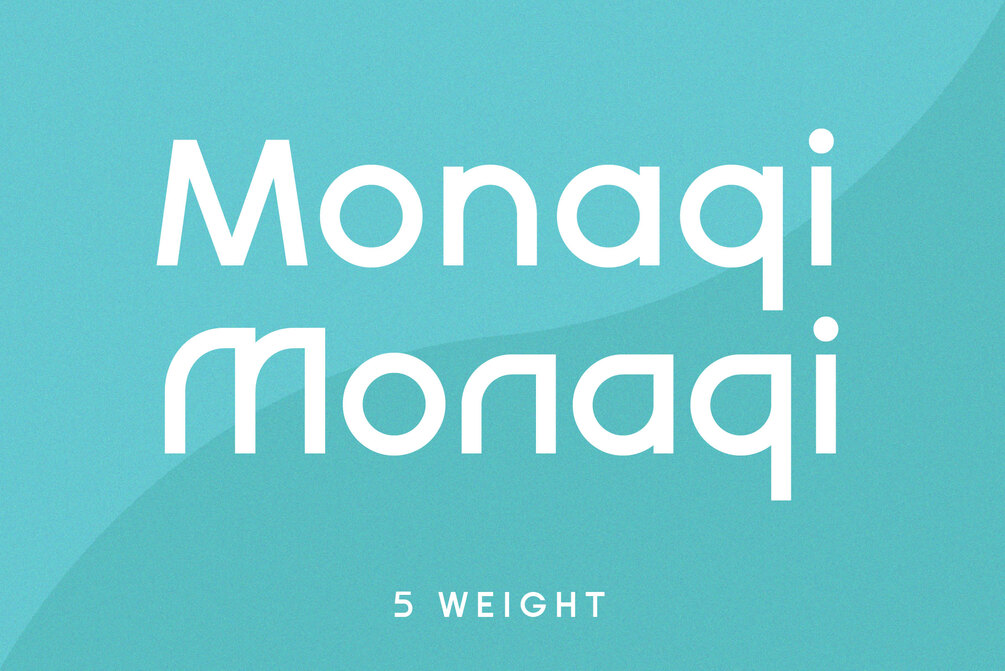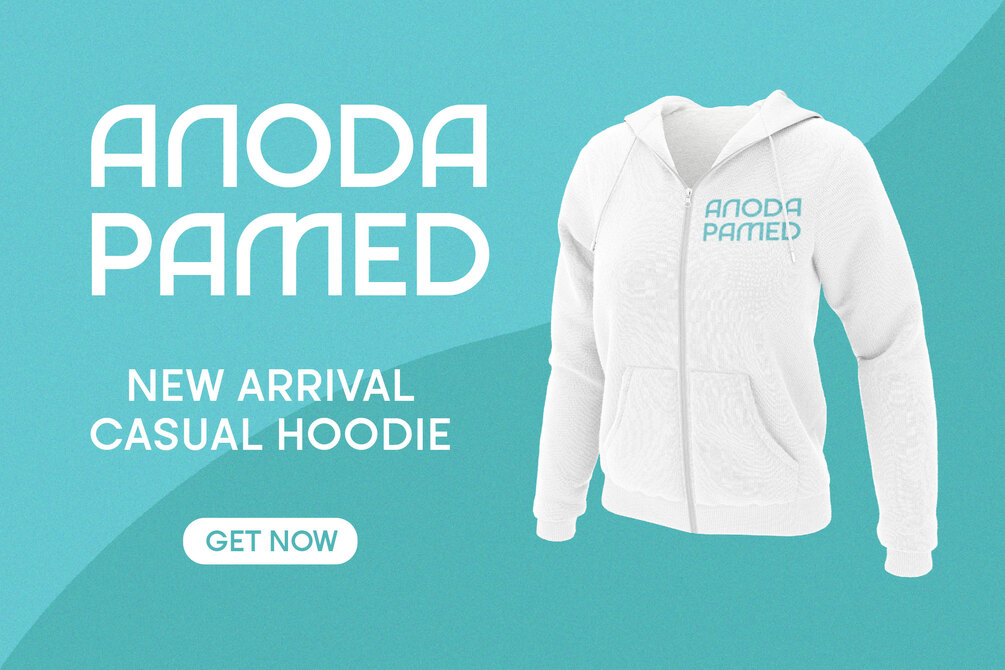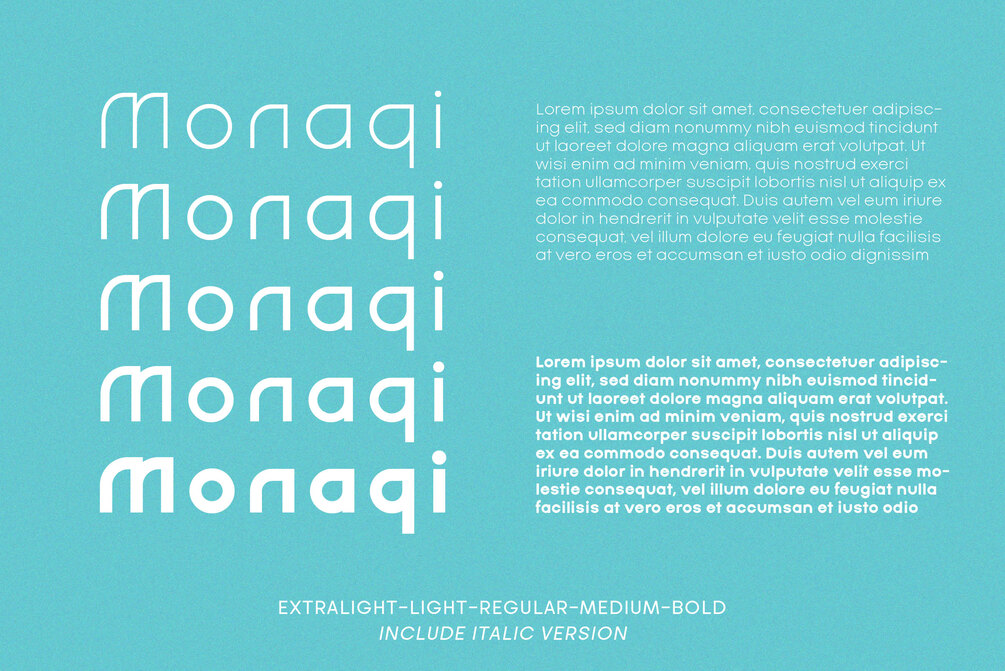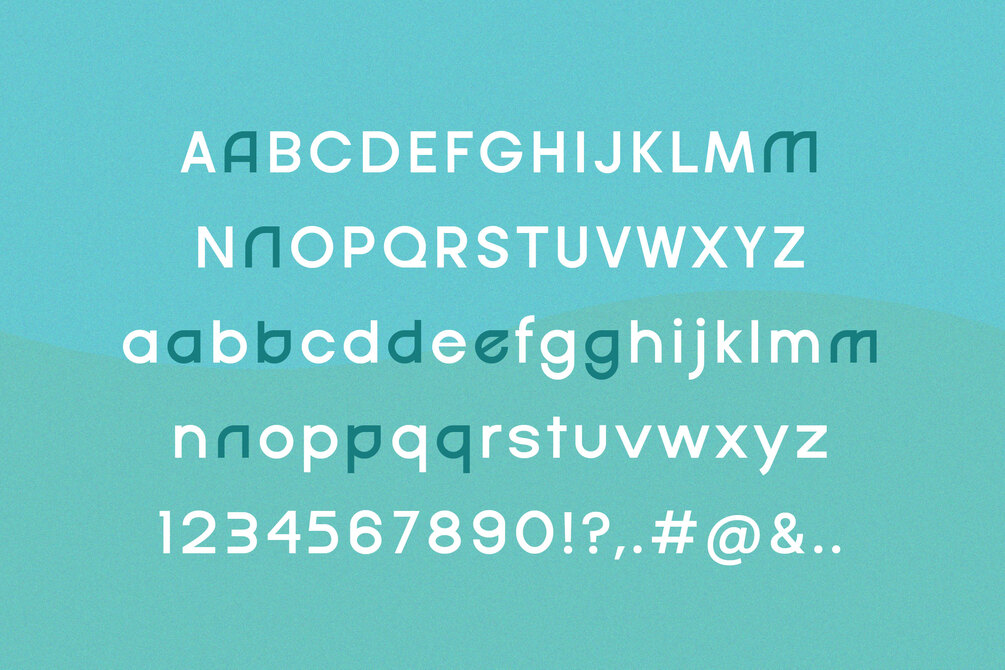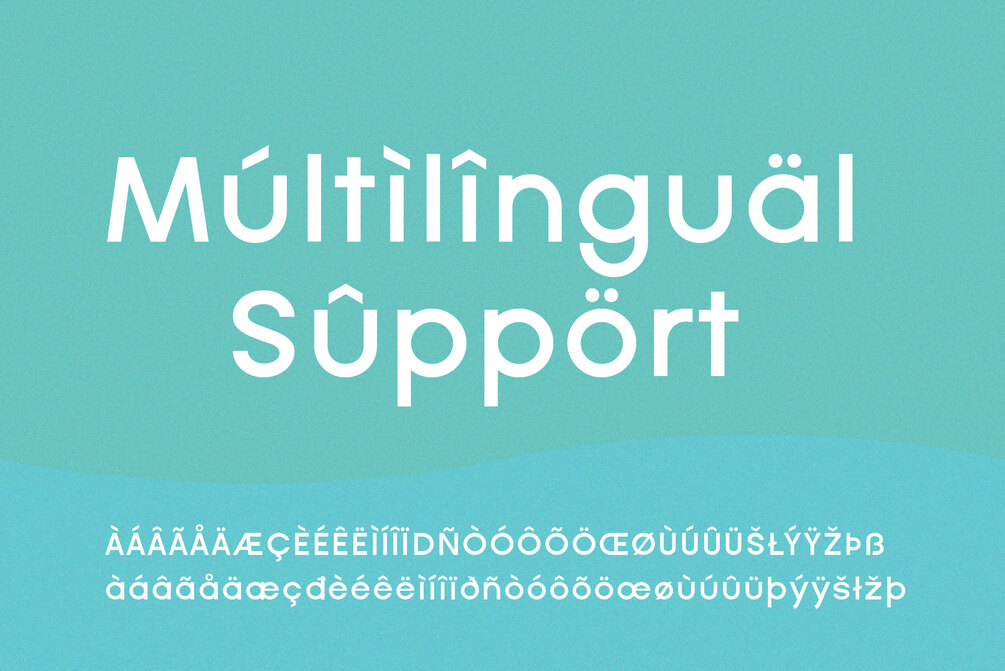
Monaqi
Introducing Monaqi Sans Serif Font
Monaqi is a clear and multifunctional san serif family font. Can be used as a plain text font, stylish title or logo, very useful for your various project needs.
- Uppercase & Lowercase
- Numbers & Punctuation
- Alternates
- Multilingual Support